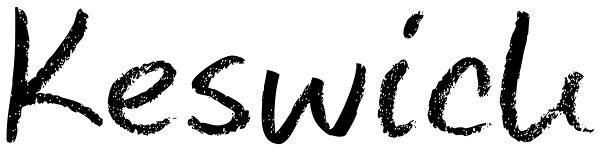
Keswick
Keswick is a beautiful small town in the English Lake District. It is a good place to hang out for a while and explore the surrounding National Park. During your stay you could visit the Keswick Pencil Factory - which brings us to this nice font...
Keswick
Keswick Italic